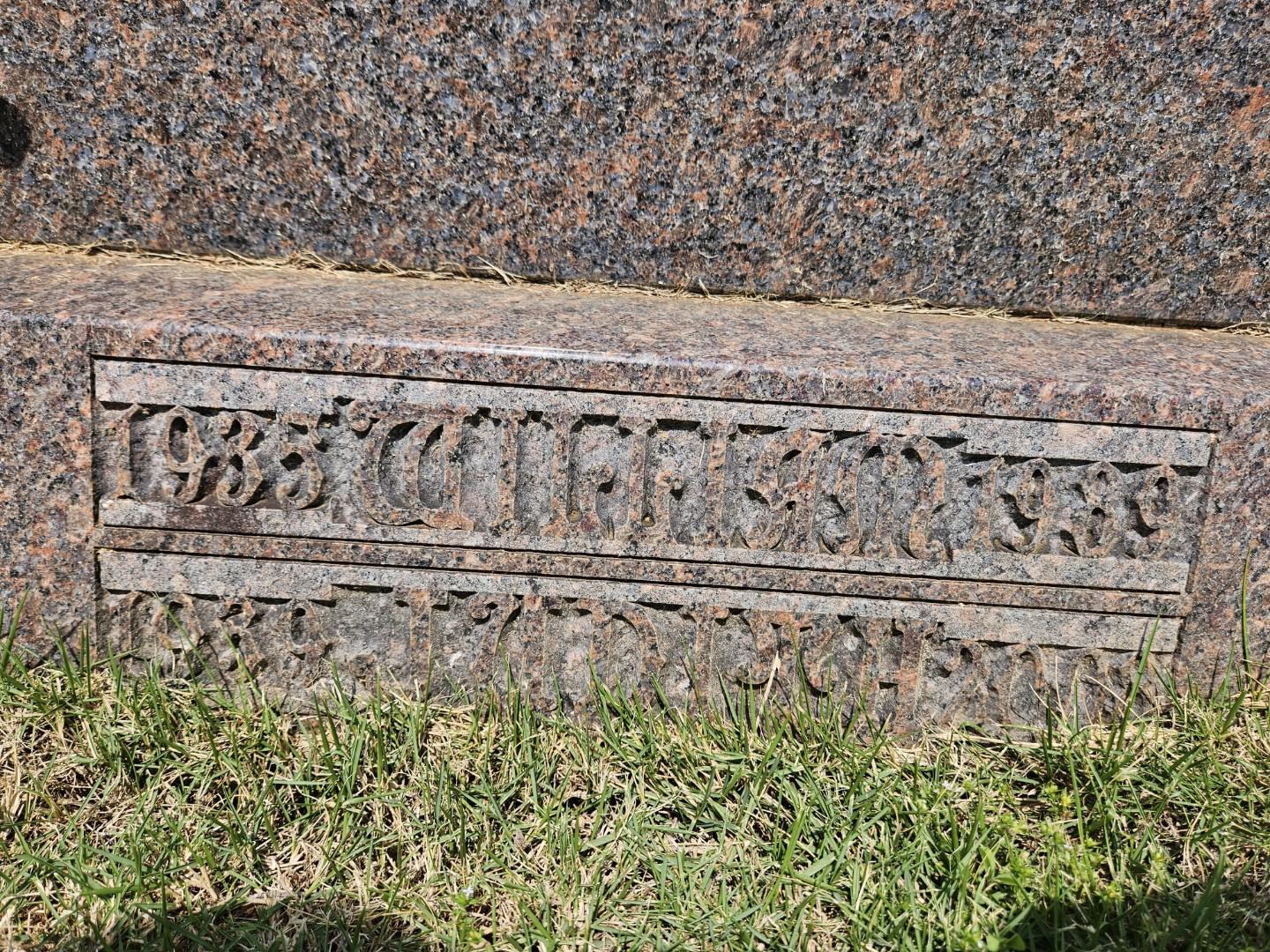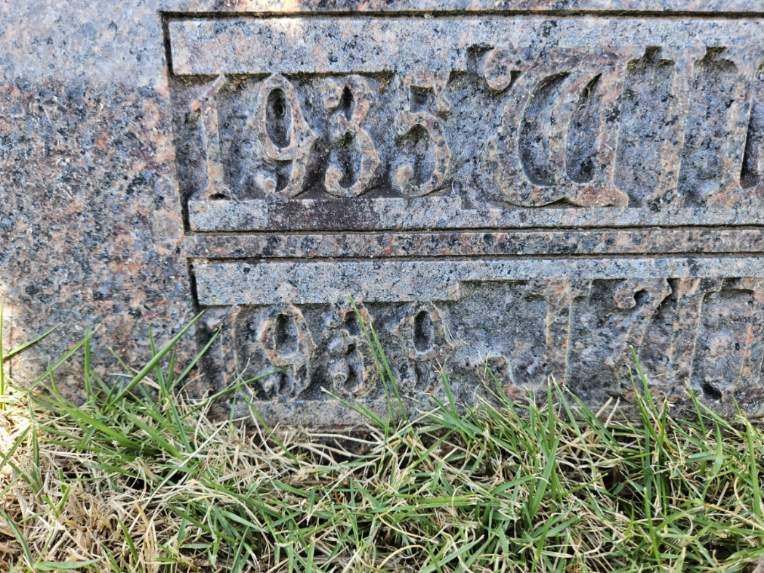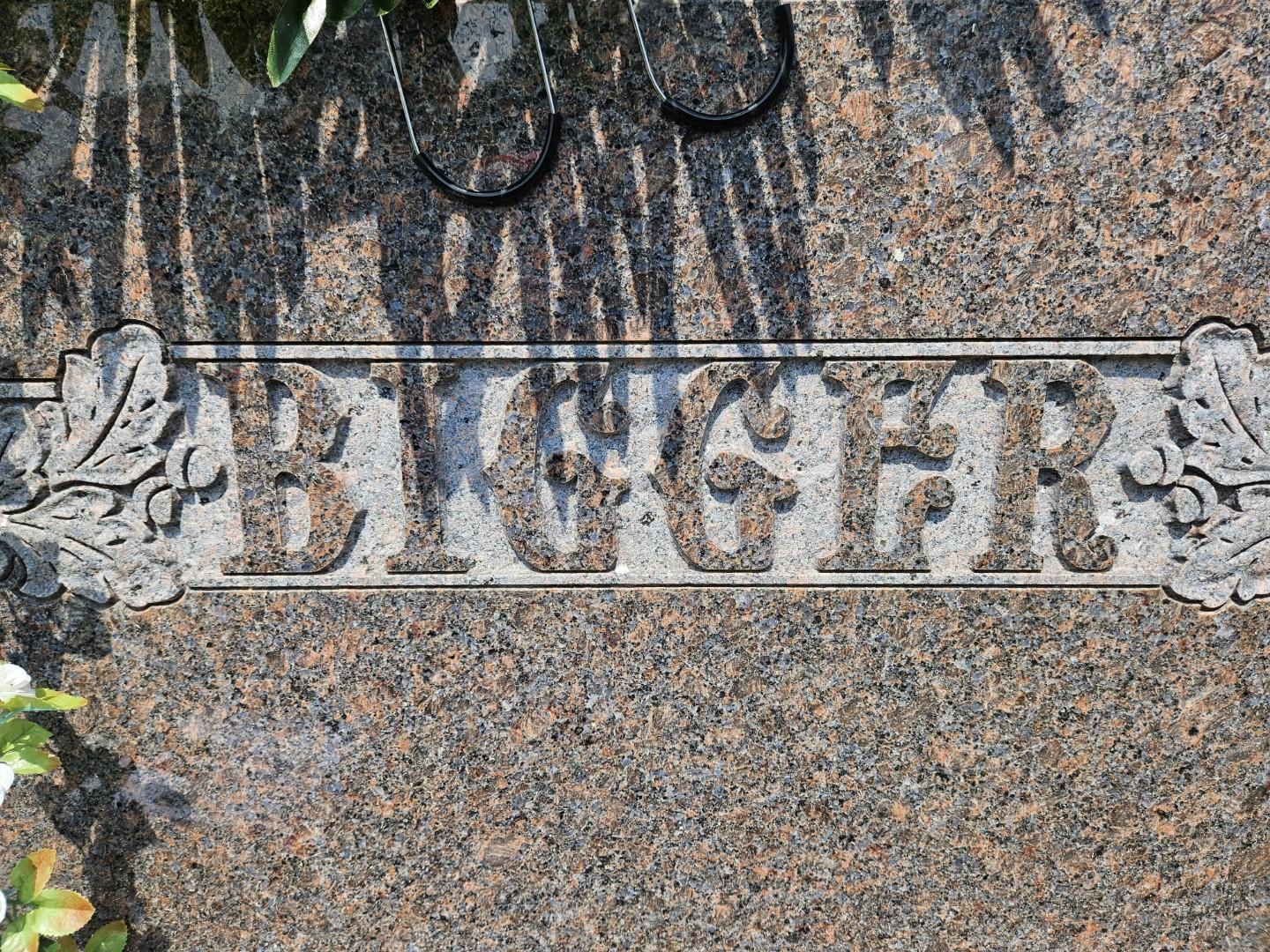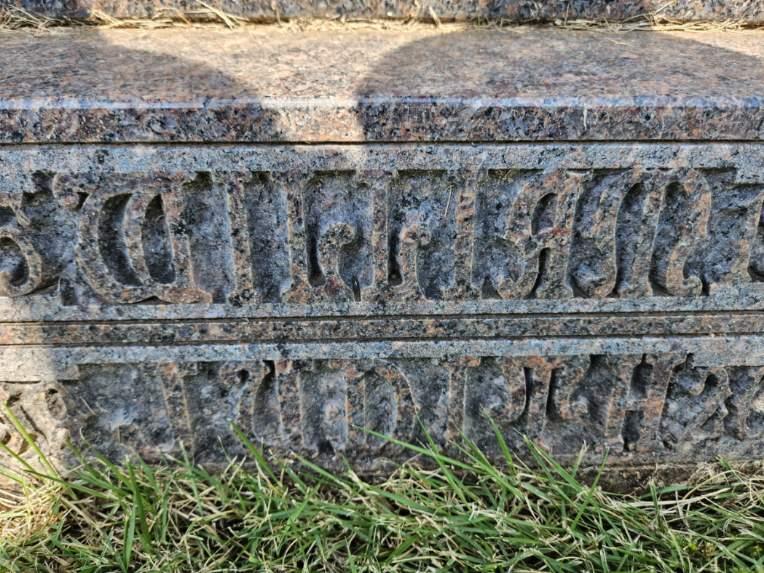
Font ID Home › Forums › Lettering and Font Identification › Font ID This topic has 1 reply, 2 voices, and was last updated 3 years ago by MLC. Viewing 2 posts - 1 through 2 (of 2 total) Author Posts June 17, 2023 at 2:46 pm #9190 mdolberryParticipant Does anyone know what font this is? June 19, 2023 at 10:22 am #9196 MLCKeymaster This is a hand-drawn Lombardic style alphabet that appears to have been loosely based on the Spacerite “Uncial Gothic” alphabet, though the lettering for the surname is quite different, the name and dates is similar. If you would like help matching this, feel free to use the MLC Inscription Matching Service. Author Posts Viewing 2 posts - 1 through 2 (of 2 total) You must be logged in to reply to this topic. Log In Username: Password: Keep me signed in Log In